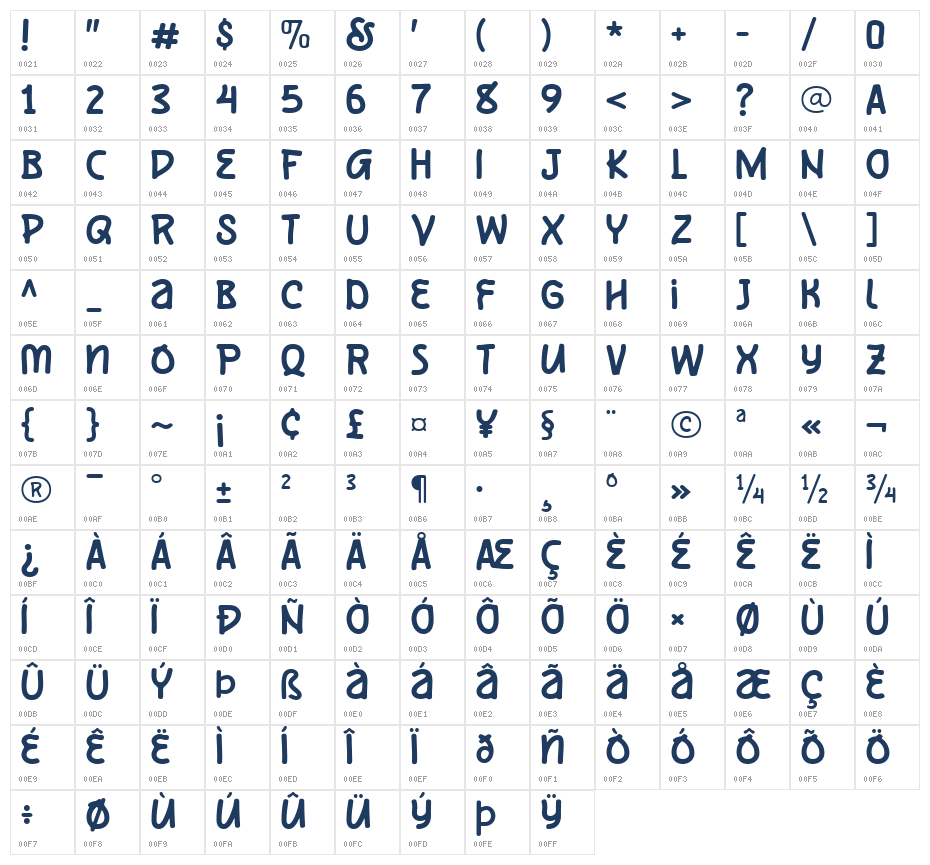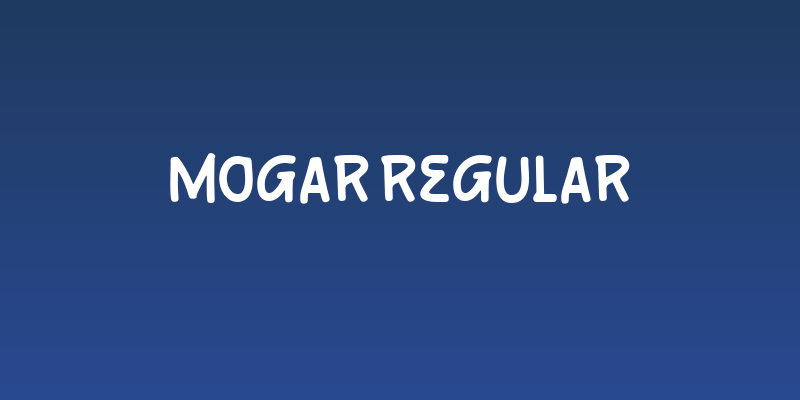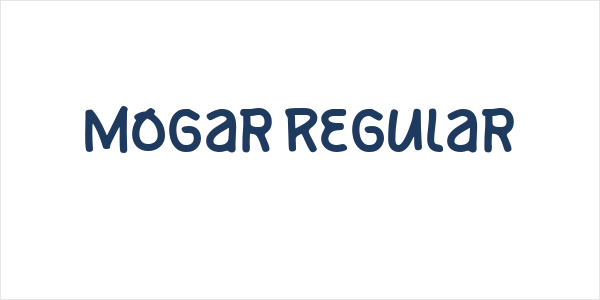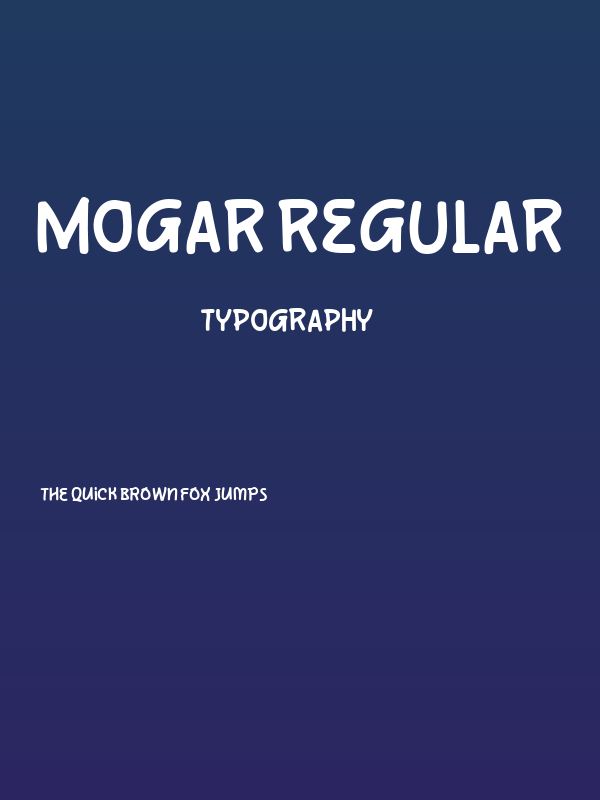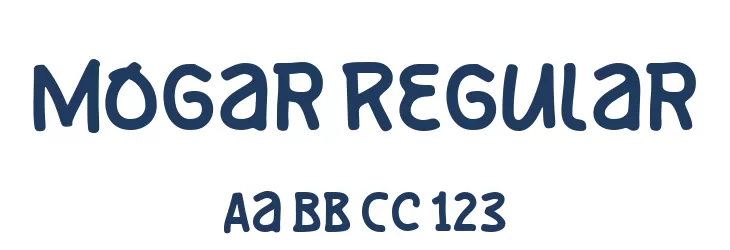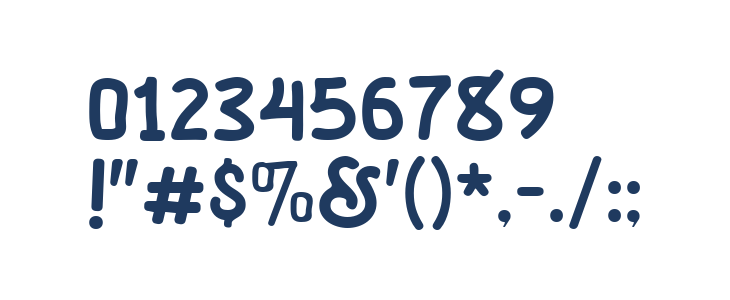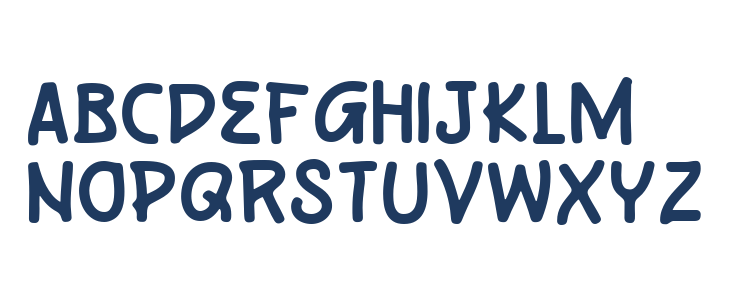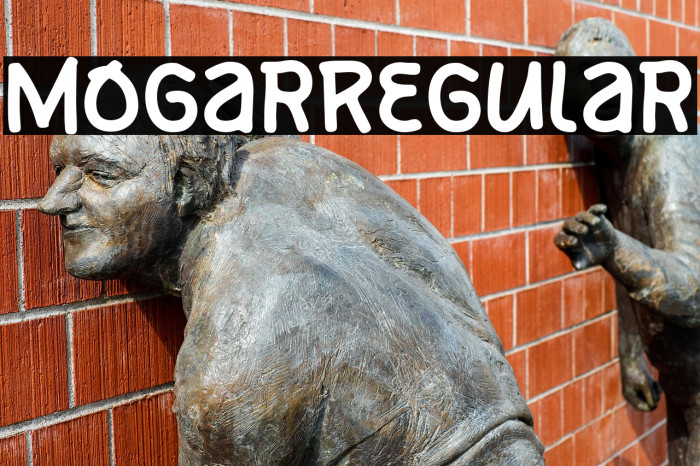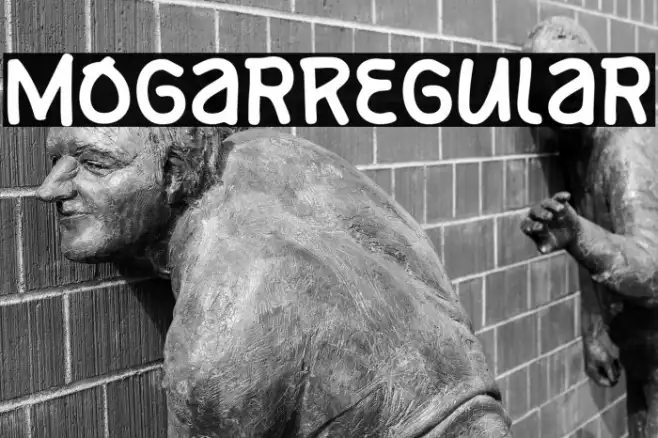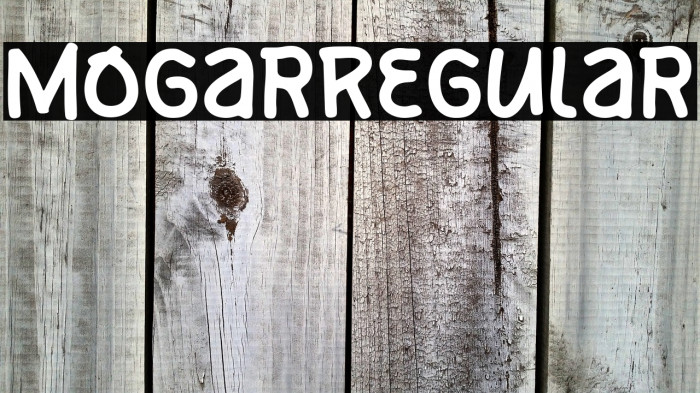
Mogar Regular Font
Mogar Regular Description
A playful, rounded, handwritten style font with a casual and friendly appearance.
| Overall Style | Casual, Playful, Friendly |